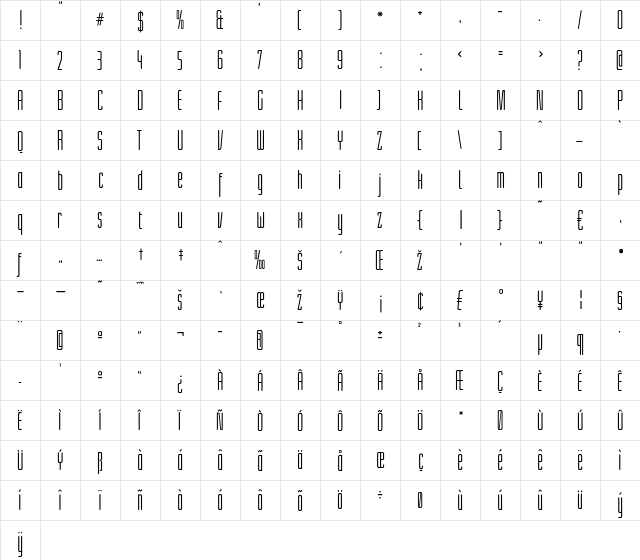
LinotypeLichtwerk Regular
Design Context for LinotypeLichtwerk Typeface
LinotypeLichtwerk is a composed and adaptable typeface that performs quietly and consistently across a wide range of design contexts.